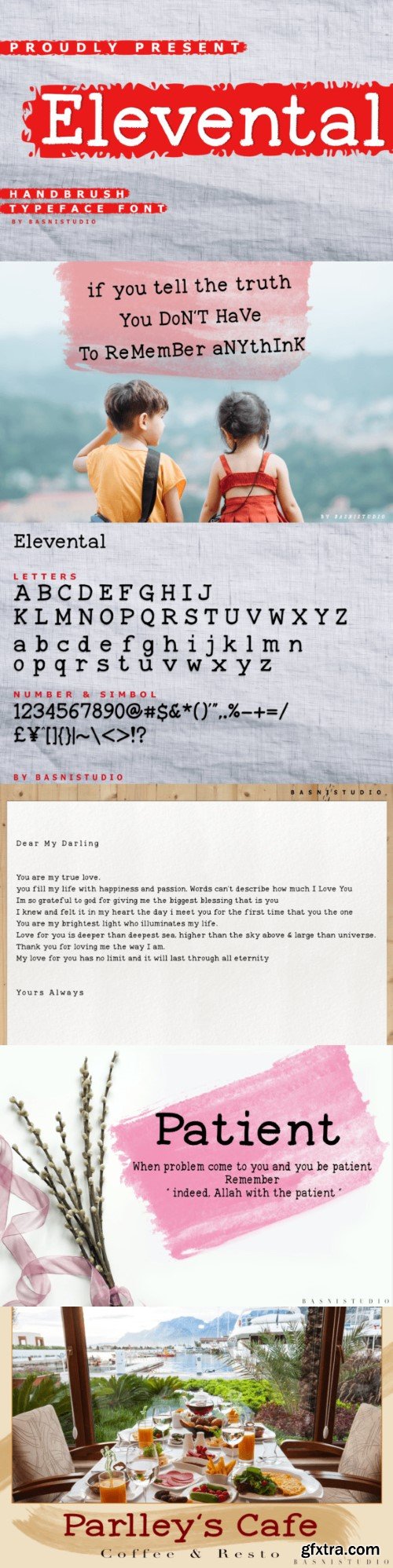
Elevenal Font
Elevental Handbrush Typeface Font, made with Simple Brush and Stylish, perfect for branding, websites, and editorial designs. Includes all Character letters, multilingual support, punctuation, and binding. Everything can be easily accessed using software that supports OpenType.